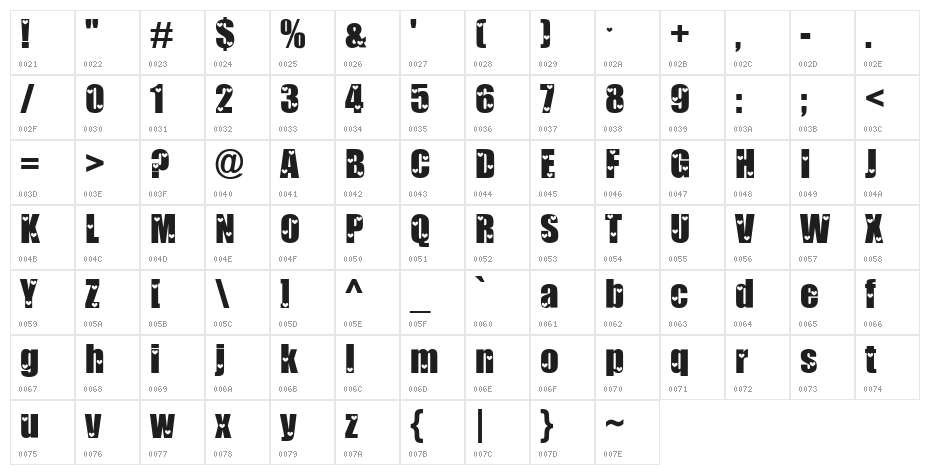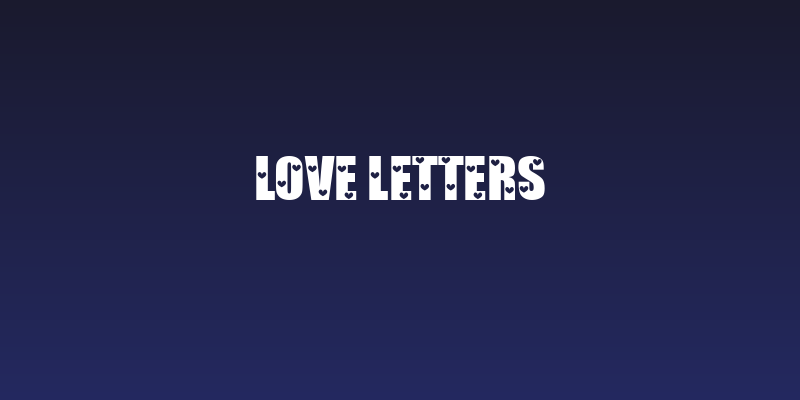
Love Letters Font
Love Letters Description
This playful and bold font features a unique design where each character is adorned with small heart shapes, adding a whimsical and romantic touch. The letters are thick and robust, making them highly visible and impactful. The heart motifs are integrated seamlessly into the characters, enhancing the overall charm without compromising readability. This font is perfect for projects that aim to convey love, affection, or a sense of fun. Its decorative nature makes it ideal for special occasions, such as weddings, Valentine's Day, or any event centered around love and joy.
| Proposed Projects | Ideal for wedding invitations, Valentine's Day cards, romantic event posters, and playful branding. |